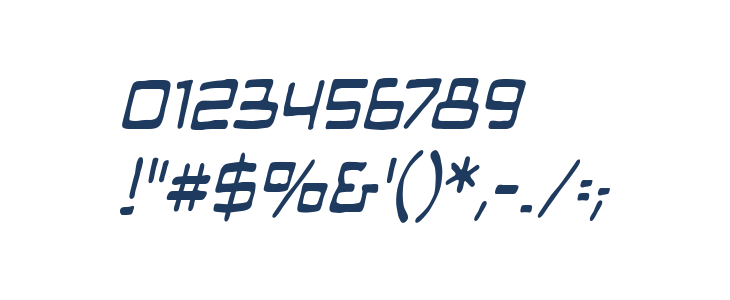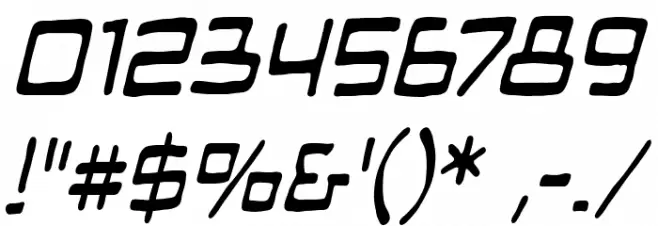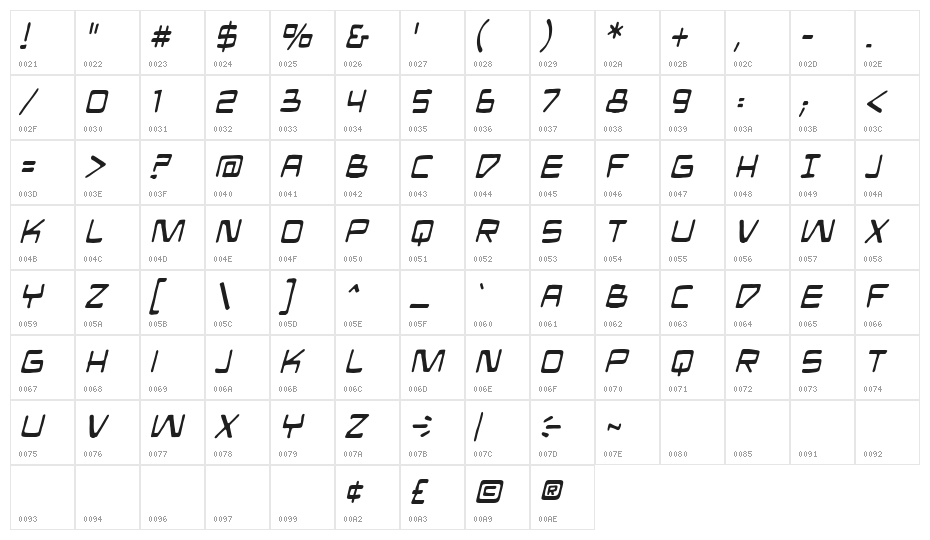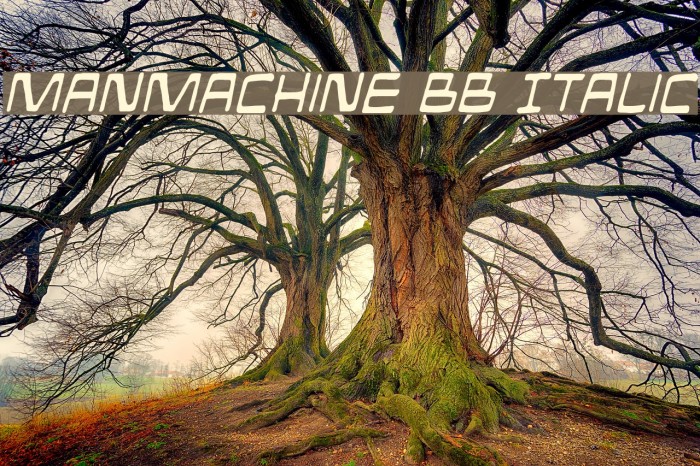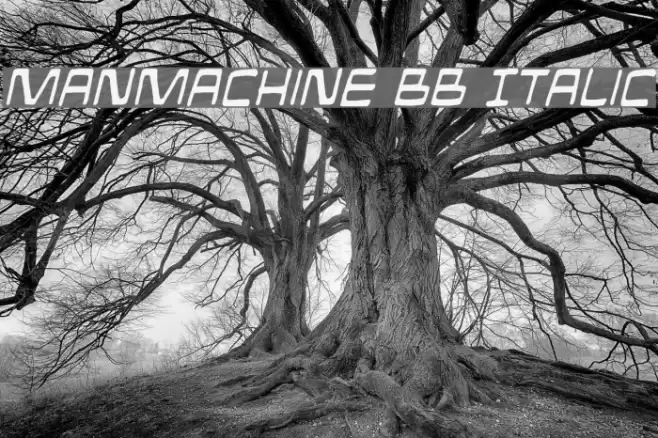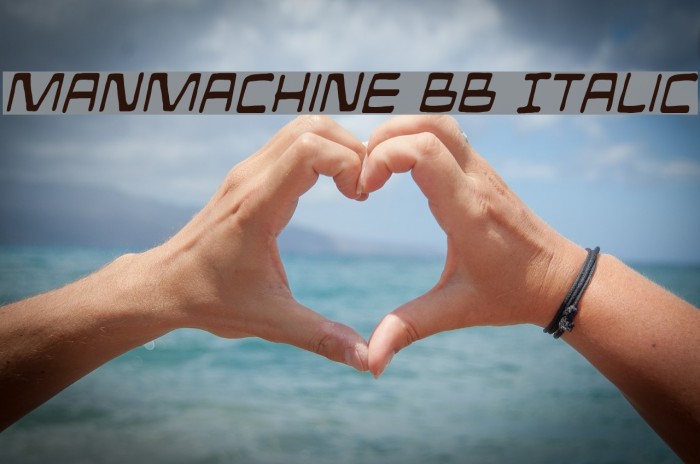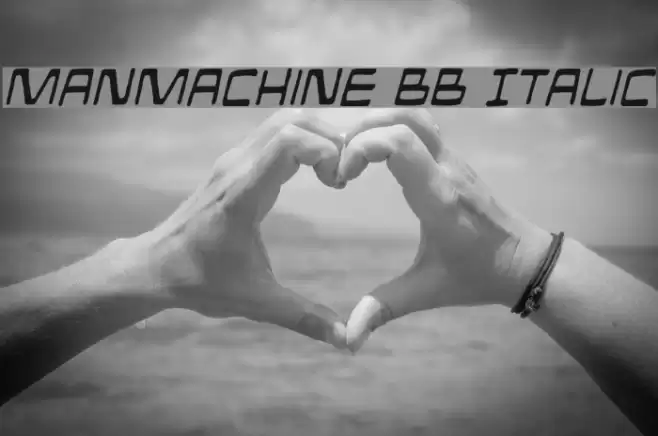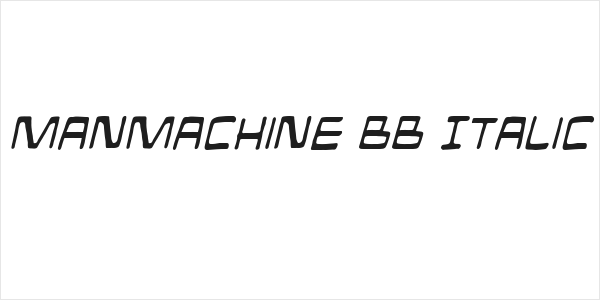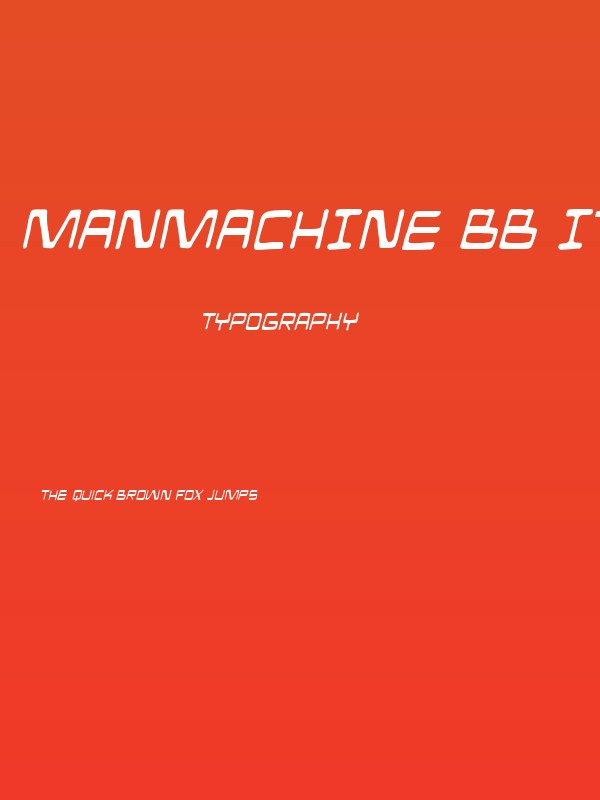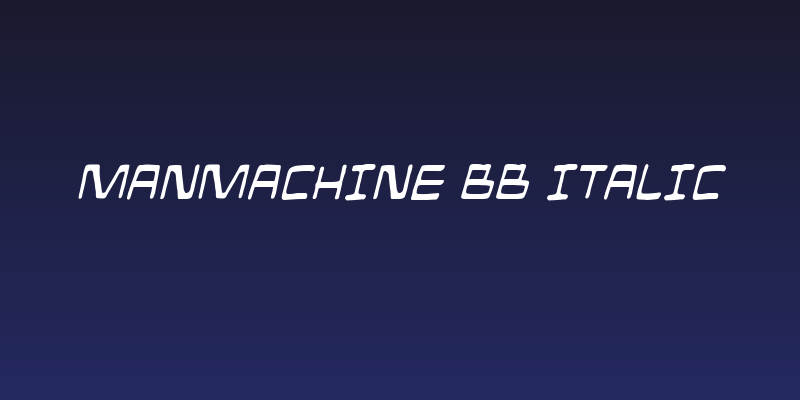
ManMachine BB Italic Font
ManMachine BB Italic Description
This font features a futuristic and dynamic design with a distinctly italicized slant, giving it a sense of motion and speed. The characters are bold and slightly condensed, with a geometric structure that emphasizes angular lines and sharp edges. The uppercase and lowercase letters maintain a consistent style, while the numerals and special characters complement the overall aesthetic. The font's design is reminiscent of digital or technological themes, making it suitable for projects that require a modern and sleek appearance.
| Use Case | Headlines, Logos, Digital Interfaces |
| Proposed Projects | Ideal for technology branding, sci-fi movie posters, video game titles, and modern digital interfaces. |